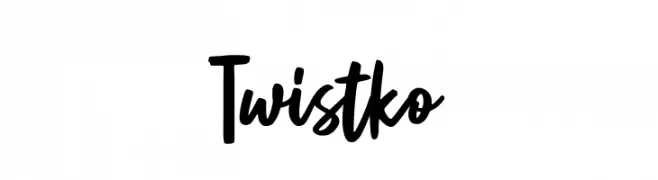
A bold, playful script font with a hand-drawn, interconnected style.
A bold, playful handwritten font with thick strokes and dynamic letterforms.
A playful, bold font with rounded, thick strokes and a whimsical touch.
A playful, rounded font with bold, smooth curves and a friendly style.
A playful, rounded font with a hand-drawn, friendly appearance.
A playful, bold font with rounded edges and a hand-drawn feel.
A playful, bold, hand-drawn font with rounded, irregular characters.